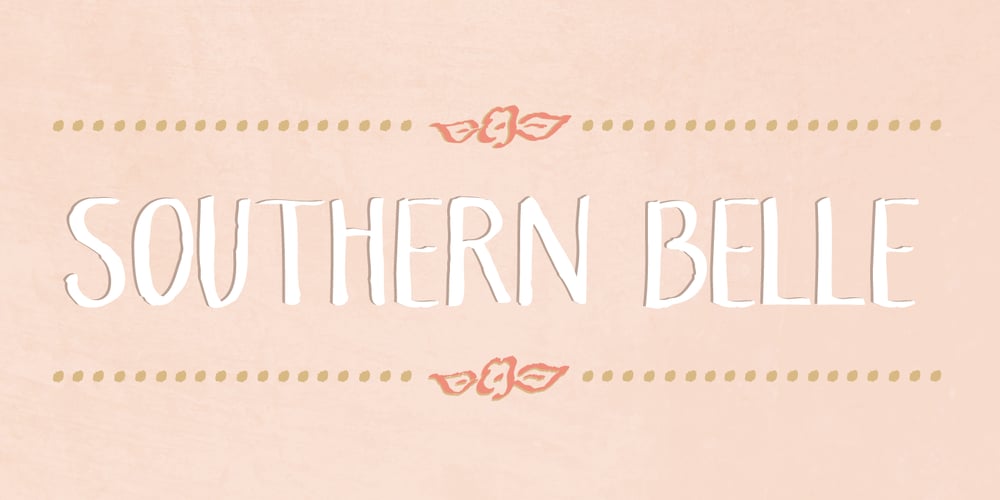
Southern Belle Font Family was designed by Angie Baldelomar and published by Angie Makes. Southern Belle contains 1 styles and family package options. Southern Belle, a cute little handdrawn font with a ton of character and a slow, southern drawl, was inspired by sweet tea and southern blossoms. Its uppercase letterforms would be a great fit for logos, envelope addresses, and more! This Southern Belle font features repeating borders, and a ton of cute little doodles. (try using + + +, = = = , and _ _ _ to see borders repeat). To access all of the characters in this font, we recommend using the glyphs panel in Adobe Illustrator. This font works best in open type aware software. Comes as an .otf font file. NOTE: To access all of the cute extras in this font that are not accessible from your keyboard, you will need software with open type glyph capabilities such as ADOBE ILLUSTRATOR or ADOBE INDESIGN.